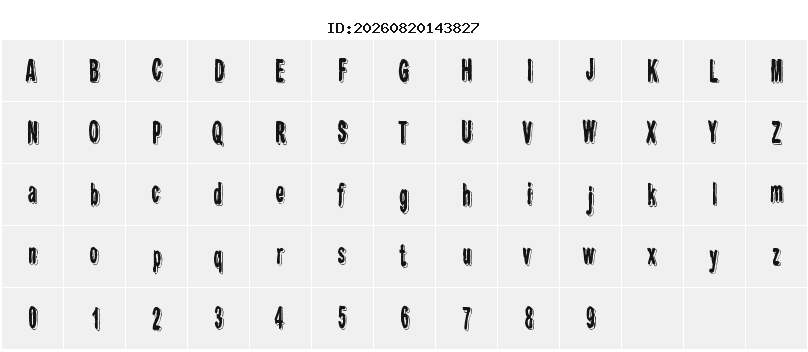
Shadow Catcher Preview
• Font Name: Shadow Catcher
• Full Font Name: Shadow Catcher
• Designer: junkohanhero
About Shadow Catcher.ttf
Shadow Catcher.ttf is a modern, elegant sans-serif font designed for ultimate readability and visual harmony. Perfect for branding, headlines, web design, and print materials.